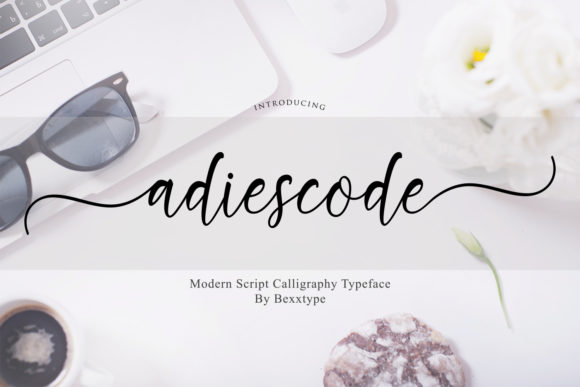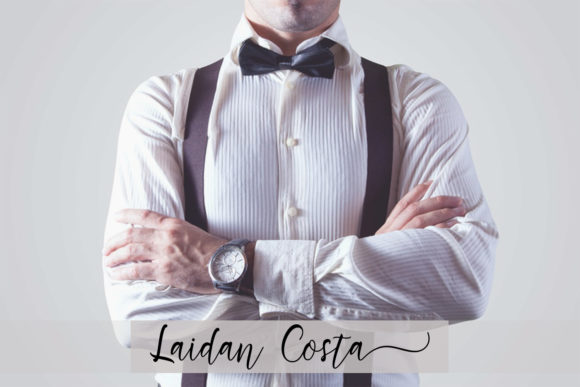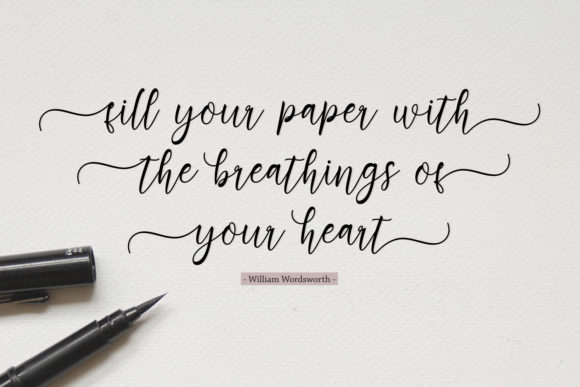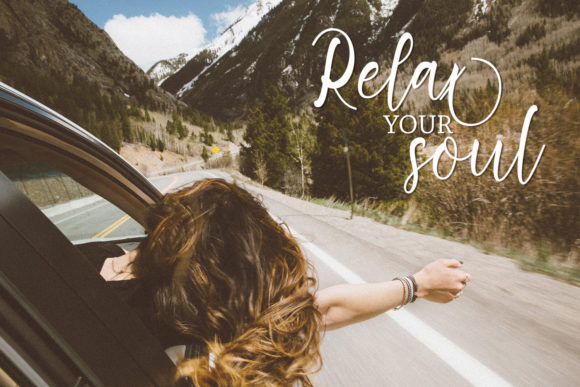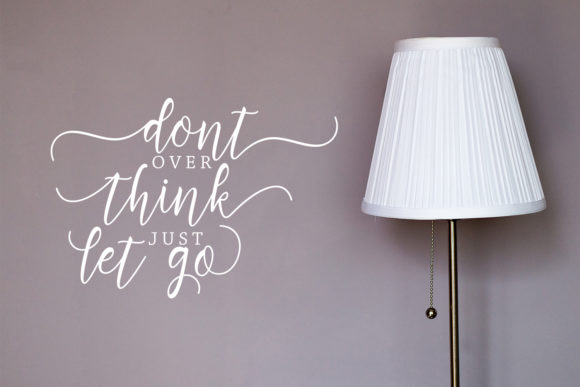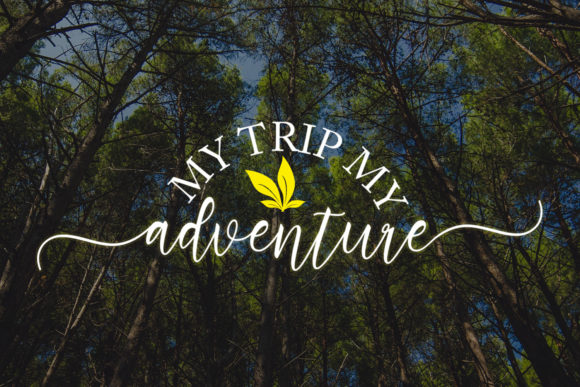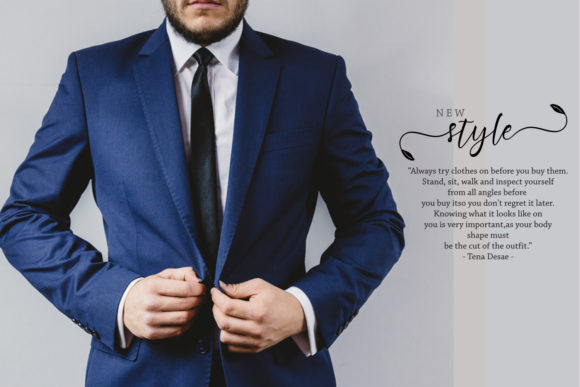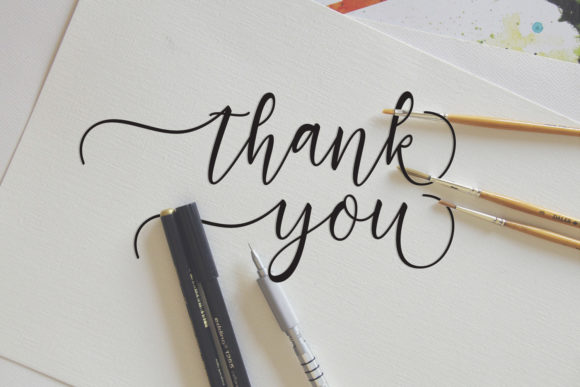
Adiescode Script Font
About Adiescode Script Font
The Adiescode is a handmade calligraphy script. It has an elegant feel and is perfect for adding a luxurious feel to your designs.